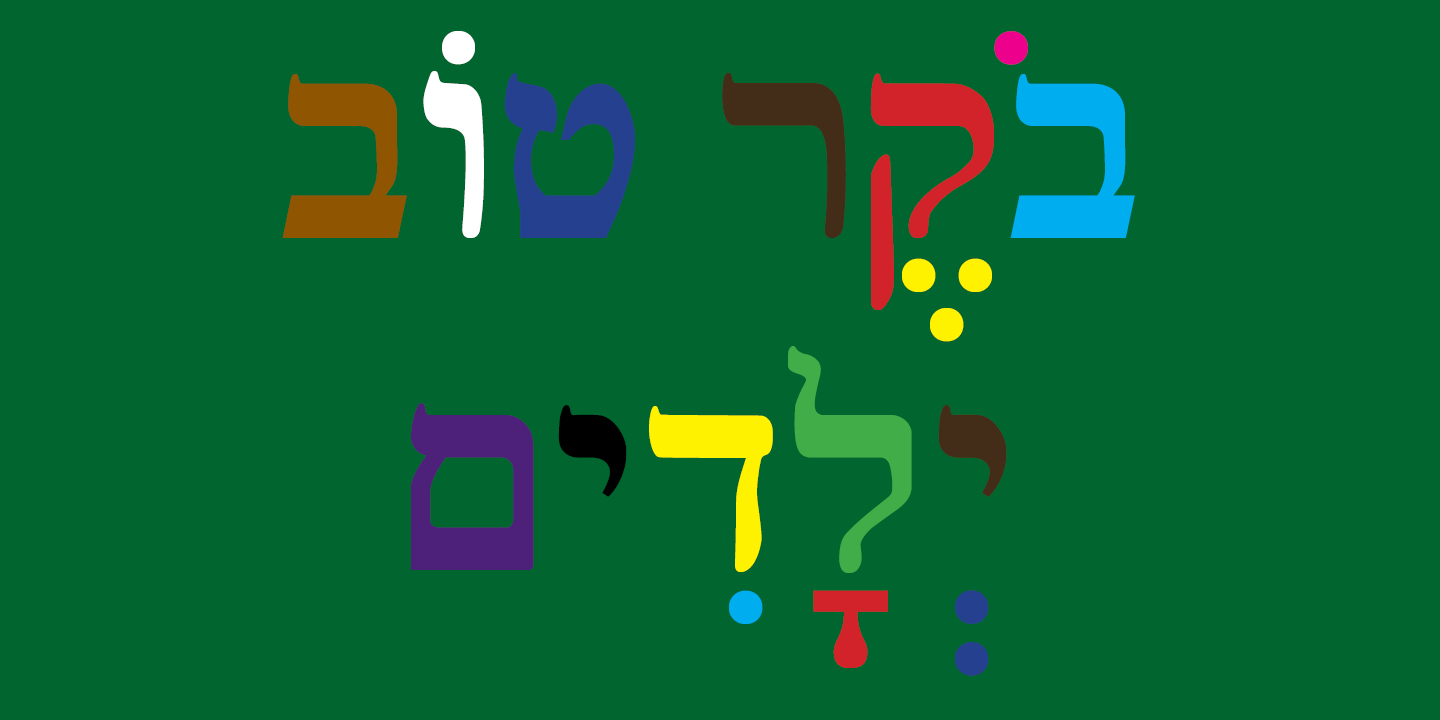
Hebrew Rinat Kids Font is perfect for Hebrew children's books, Jewish educational materials, synagogue youth programs, Hebrew learning apps, Israeli children's products, Bar/Bat Mitzvah invitations, Hebrew school textbooks, Jewish cultural center signage, Hebrew language games, and multilingual family communications.
What makes Hebrew Rinat Kids Font so exciting is its child-friendly Hebrew typography that beautifully combines traditional Hebrew letterforms with playful, accessible design for young learners. This charming Hebrew display typeface features rounded Hebrew characters, friendly proportions, and educational clarity that creates an immediate sense of warmth and learning excitement, making it the perfect choice for educators and brands that want to make Hebrew language learning joyful, engaging, and accessible for children.
The Hebrew Rinat Kids Font family includes regular, bold, and outline versions, along with Hebrew vowel marks (nikud), educational symbols, Jewish cultural motifs, and child-friendly decorative elements. Each style maintains the font's signature educational character while providing designers with comprehensive options for creating genuinely engaging Hebrew communications that support language learning and cultural connection.
Whether you're designing for Hebrew schools or Jewish cultural organizations, Hebrew Rinat Kids Font Free Download delivers the educational warmth needed to make Hebrew learning accessible and enjoyable for young minds. The font's carefully crafted Hebrew letterforms ensure excellent readability while maintaining its distinctive child-friendly character that resonates with students, parents, and educators committed to Hebrew language education.
This educationally designed typeface works beautifully across both traditional print Hebrew materials and modern digital Hebrew learning platforms. The Hebrew Rinat Kids Font maintains its friendly Hebrew appeal whether displayed in Hebrew storybooks or interactive Hebrew learning apps, making it essential for anyone creating Hebrew educational content for children.
Celebrate Hebrew learning with Hebrew Rinat Kids Font and experience typography that sings with the joy of discovering Hebrew language and Jewish cultural heritage.